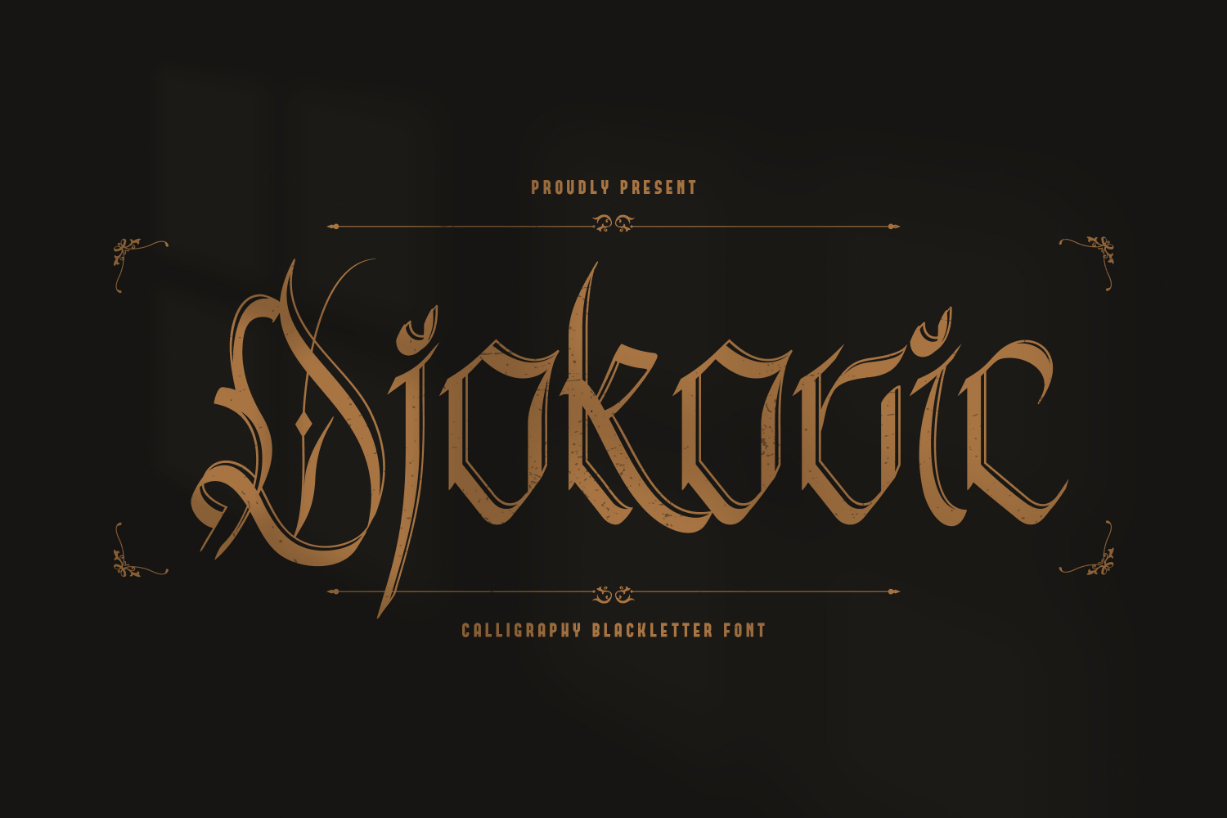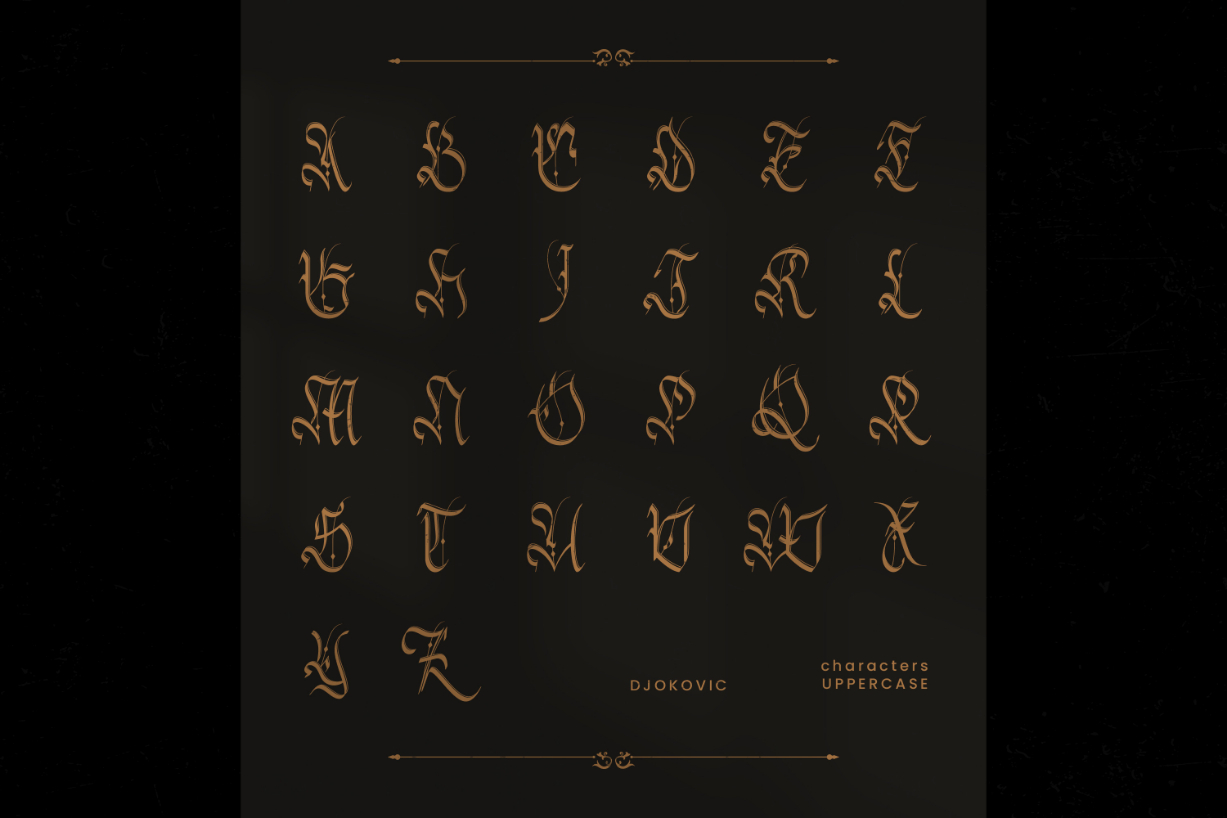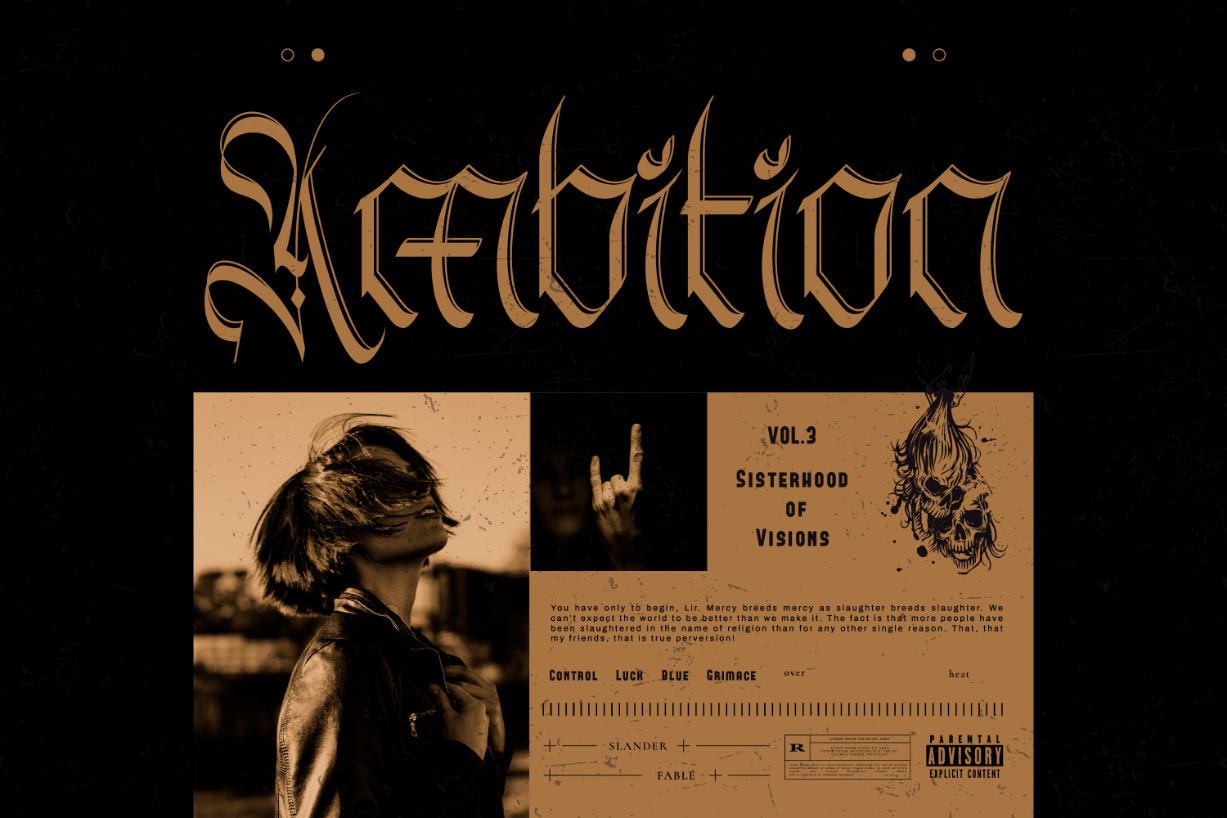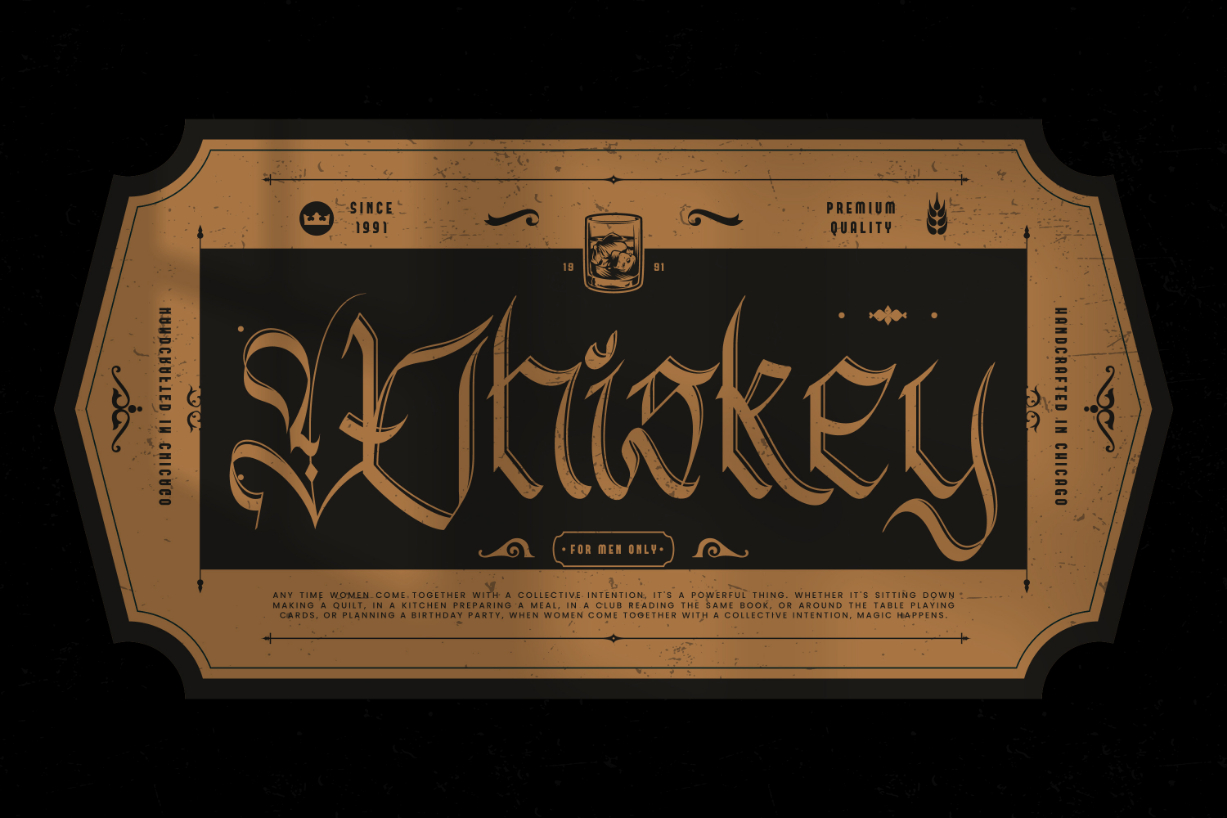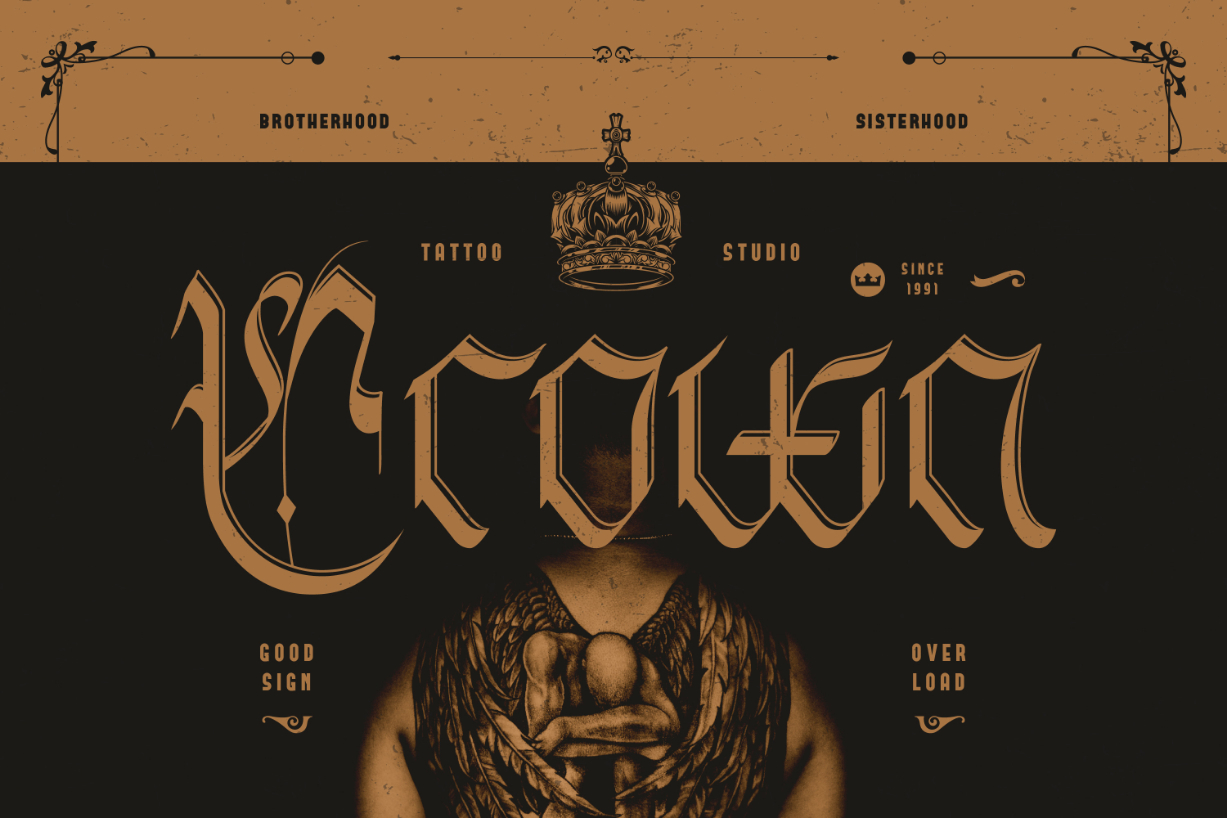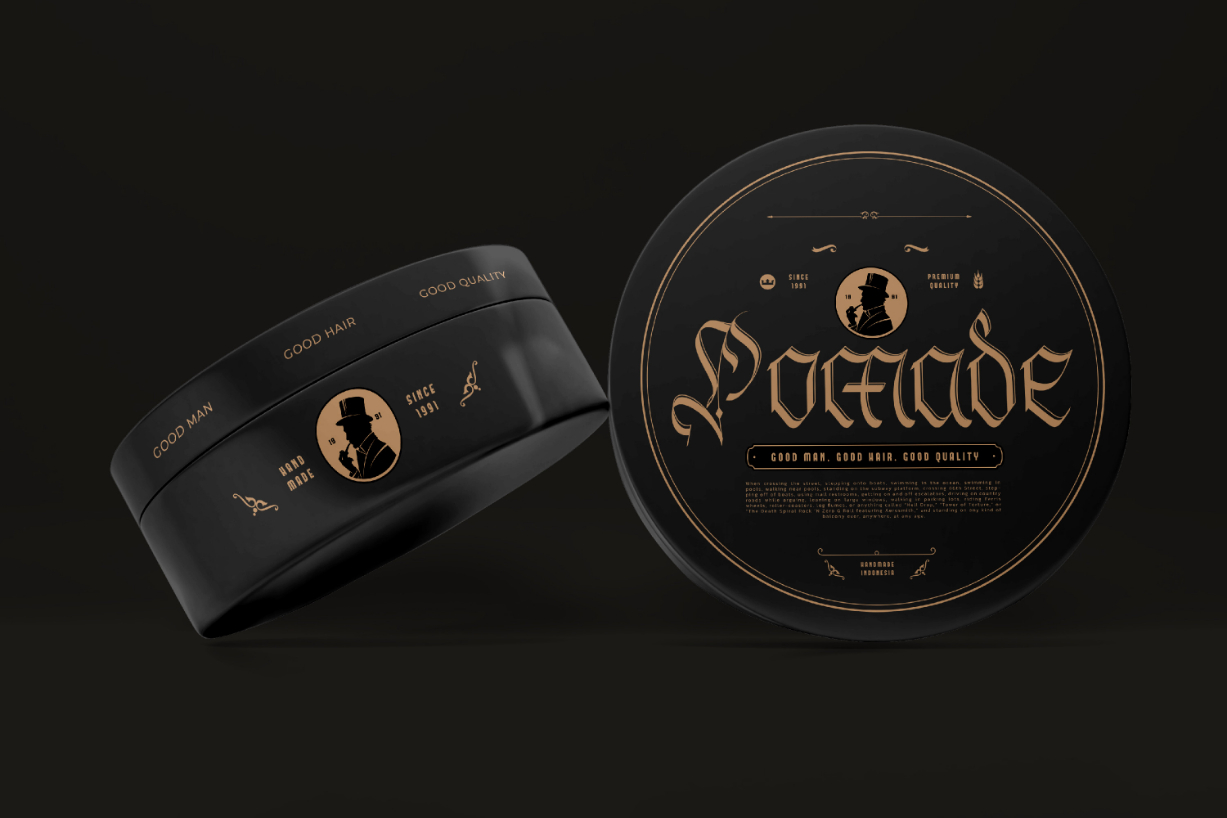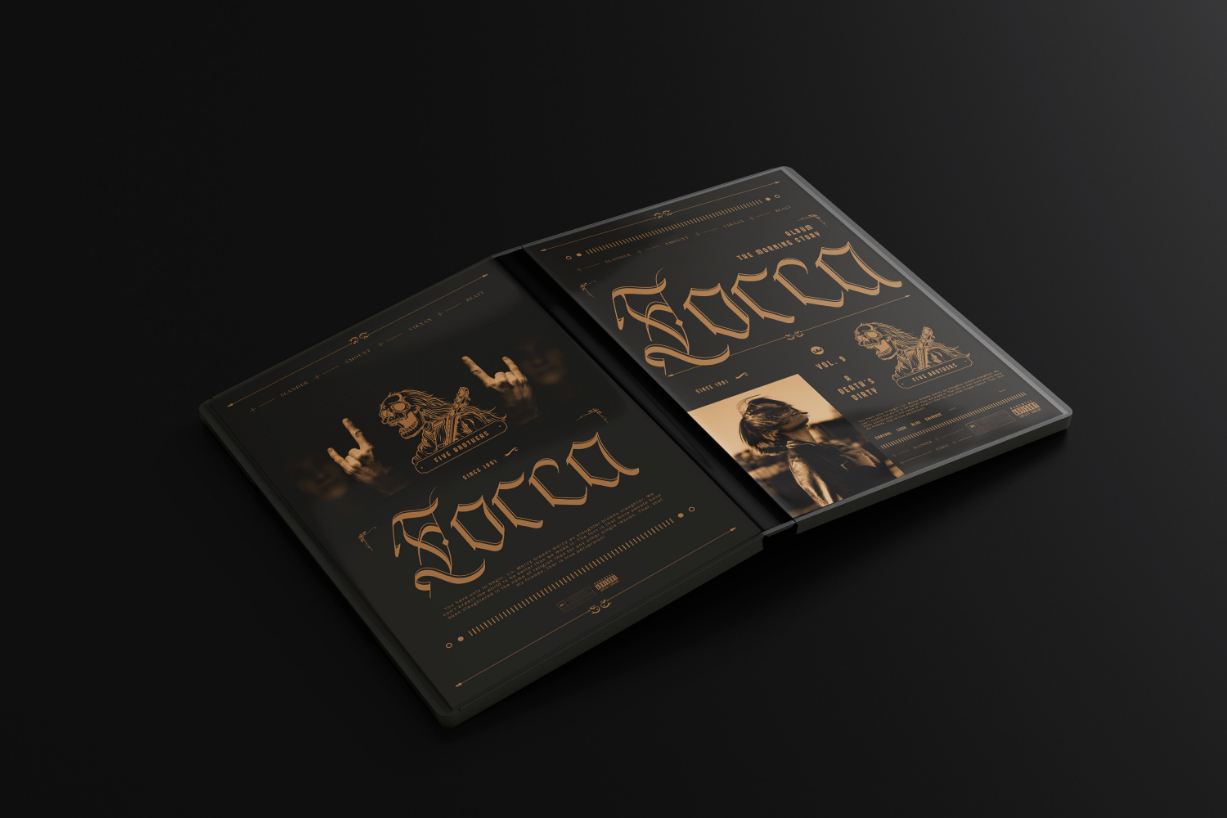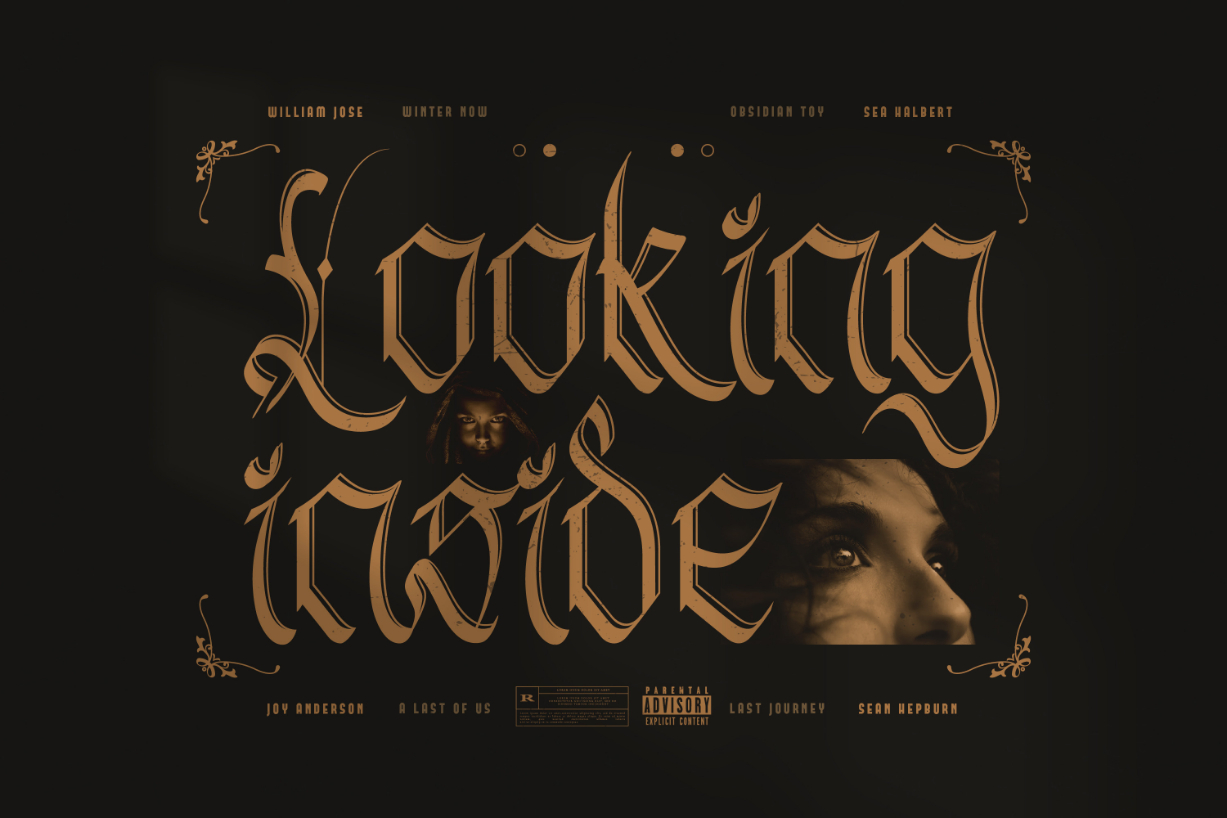
Djokovic Font
About Djokovic Font
Djokovic is a calligraphic typeface with sharp, angular strokes and a medieval appearance. Ideal for creating a vintage or traditional look for your design ideas.